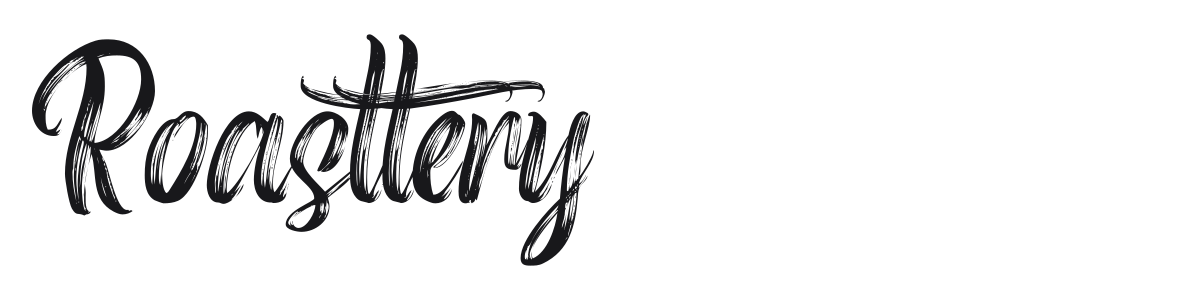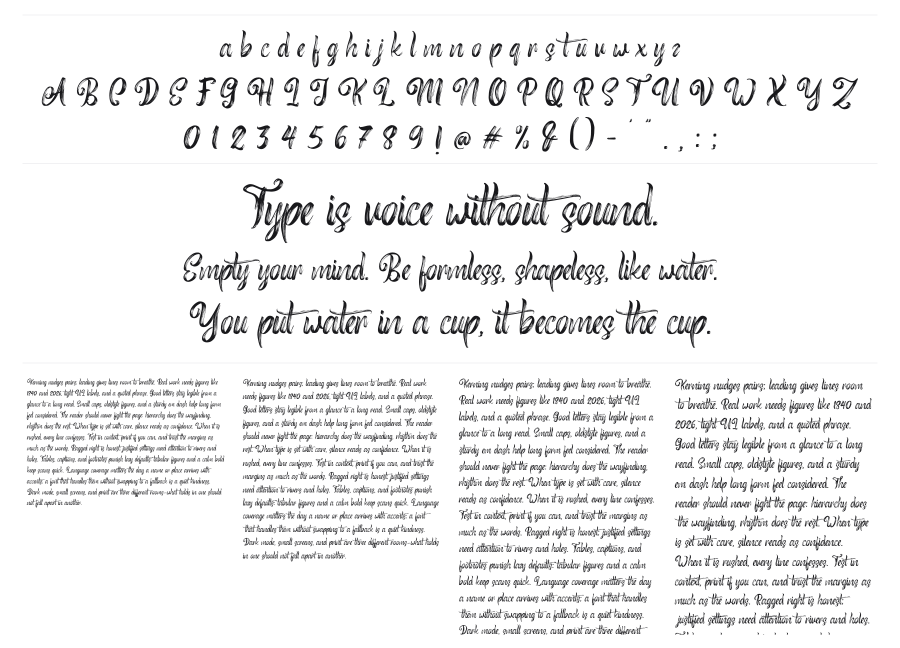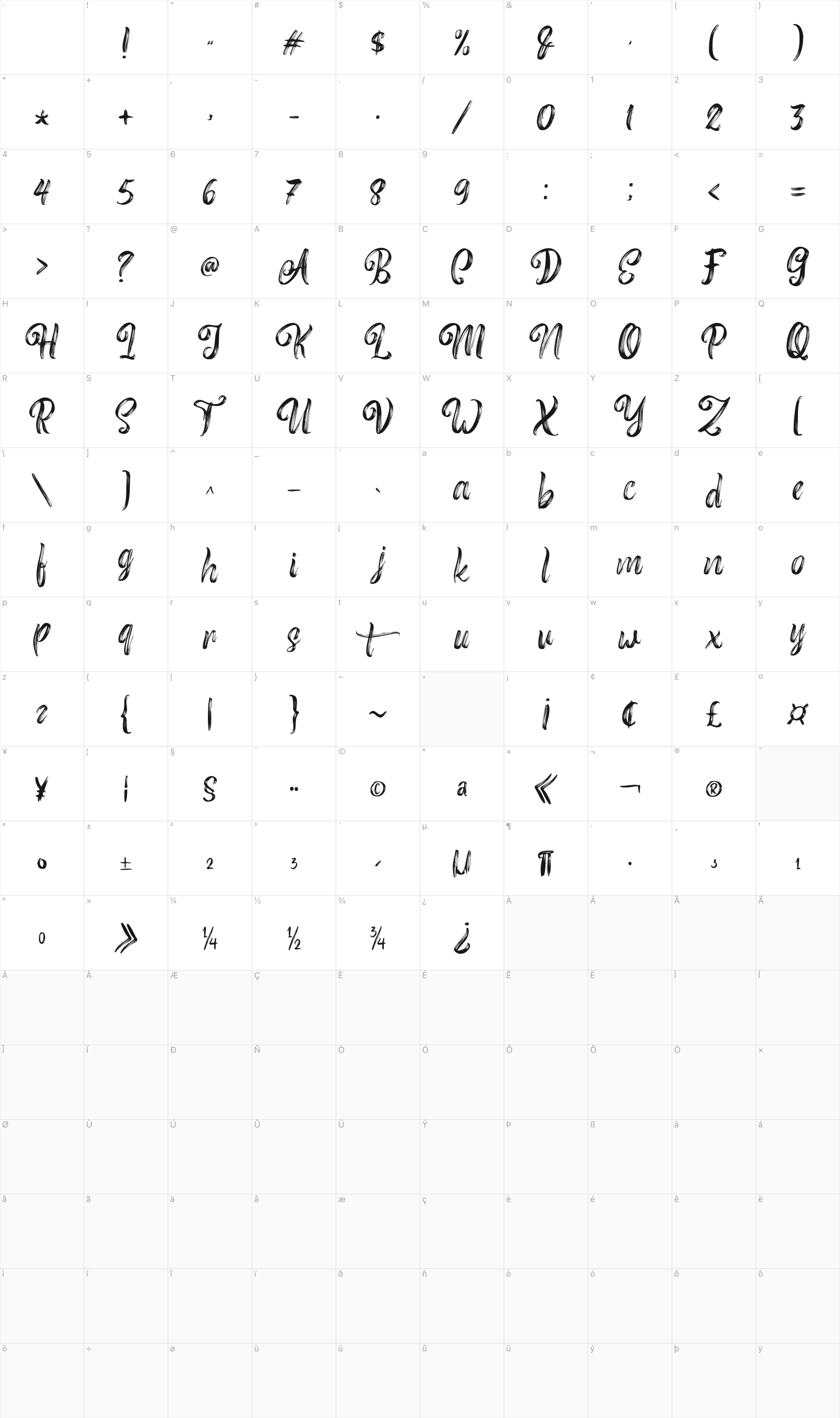
Roasttery
Roastttery is a bold brush script with heavy ink texture and high stroke contrast that puts genuine hand-lettered energy on the page. Thick swelling downstrokes break into wispy bristle trails on the thin transitions, giving it the feel of a sign painter's brush moving fast. It belongs on coffee packaging, craft beer labels, and any branding that needs to feel made by hand.